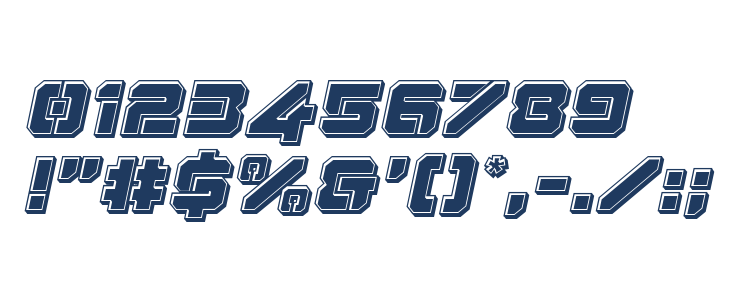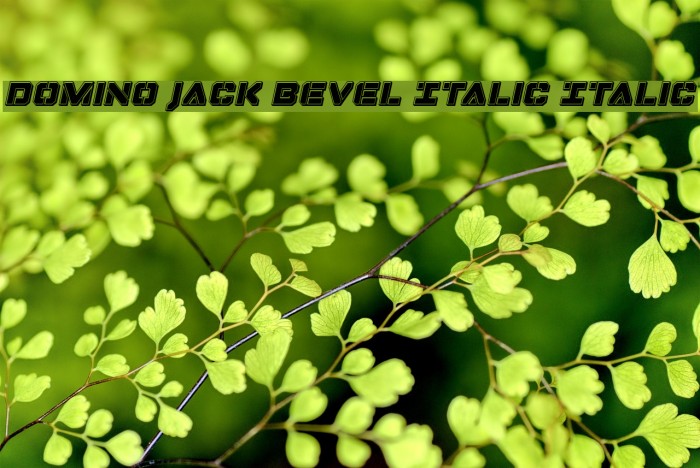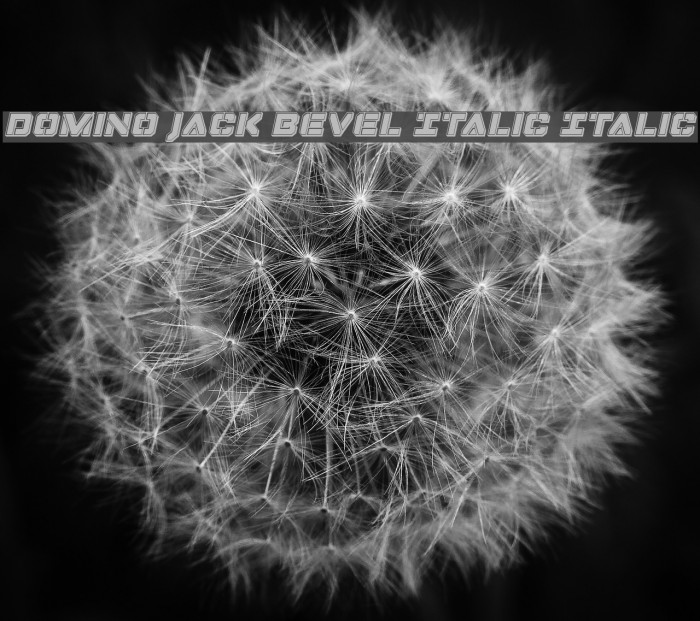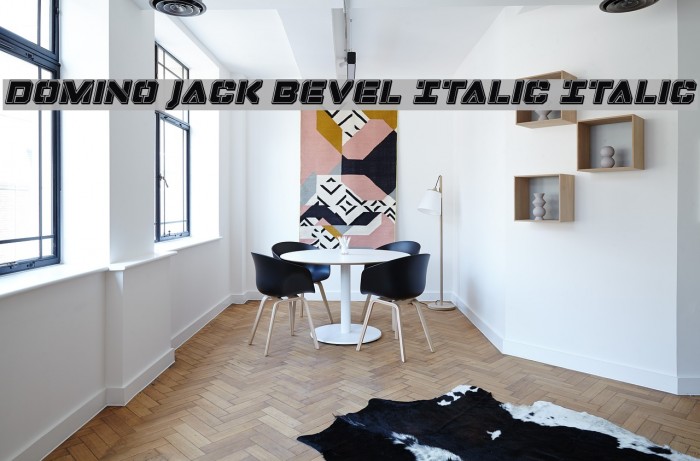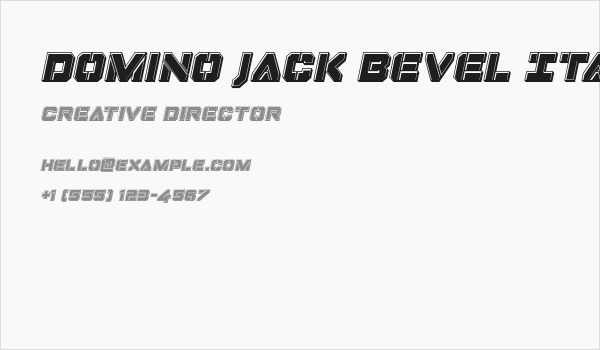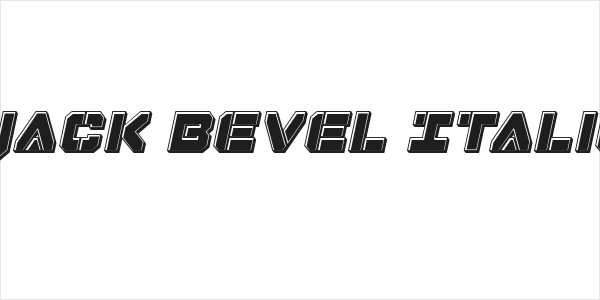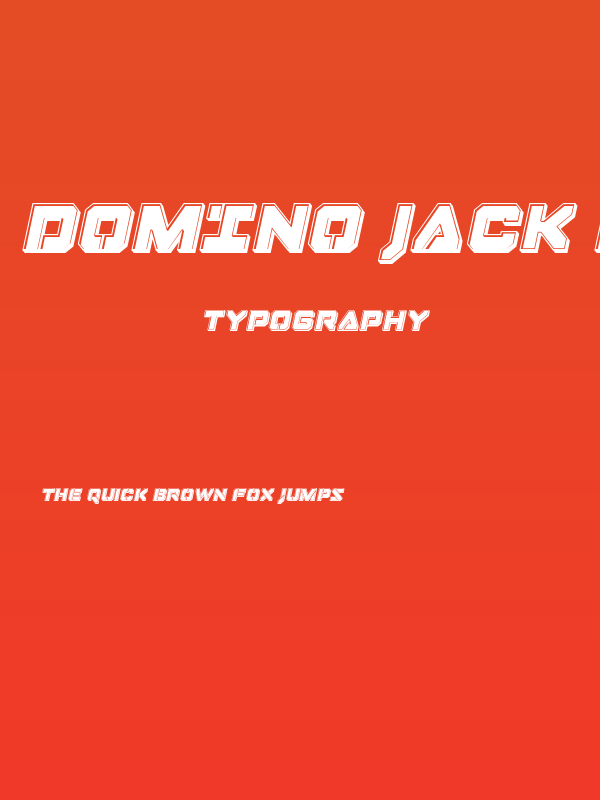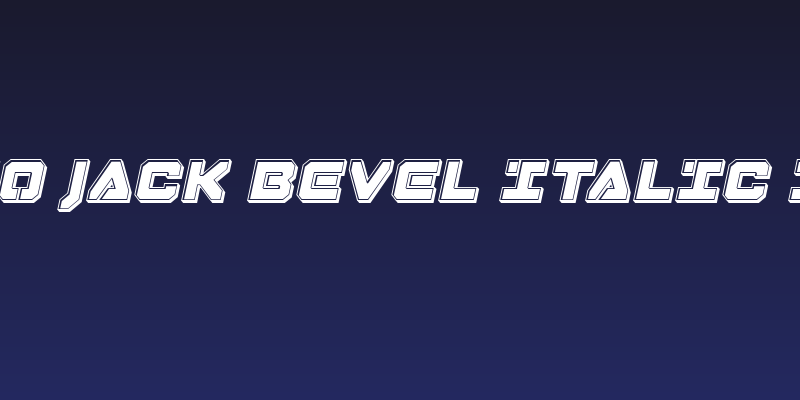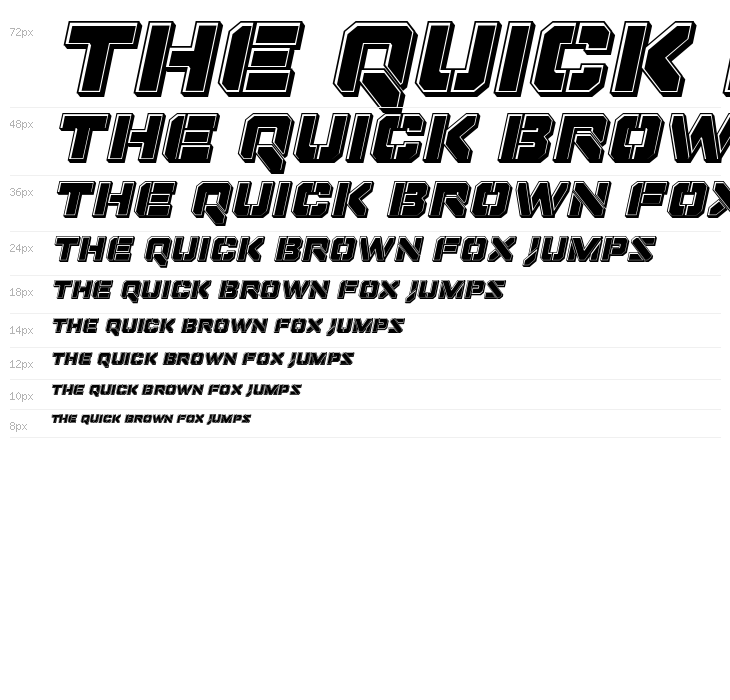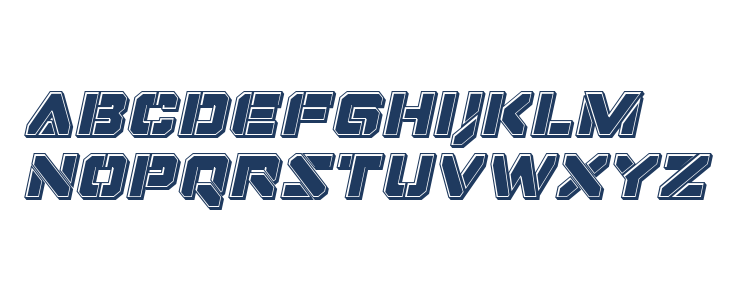
Domino Jack Bevel Italic Italic Font
Domino Jack Bevel Italic Italic Description
This font features a bold, geometric design with a distinct beveled effect, giving each character a three-dimensional appearance. The italic style adds a dynamic slant, enhancing its modern and edgy look. The uppercase letters are robust and angular, while the numbers and special characters maintain the same bold and structured form. The font's strong presence makes it suitable for impactful designs, where attention-grabbing text is essential.
| Proposed Projects | Ideal for branding, posters, headlines, and any design requiring a strong visual impact. |